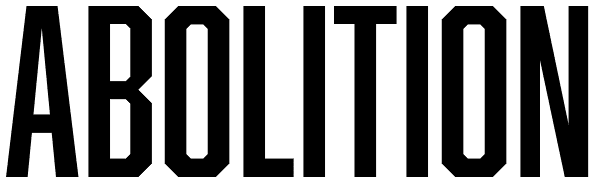
Abolition
Abolition is a condensed sans-serif display typeface that’s got a knack for propaganda posters and industrial buildings. It’s a highly modified sans-serif version of Bourbon with some new surprises. Features include: Stylistic Alternates and...
Abolition Lines
Abolition Lines Oblique
Abolition Soft
Abolition Soft Oblique
Abolition Round
Abolition Round Oblique
Abolition Rough
Abolition Oblique
Abolition Rough Oblique
Abolition